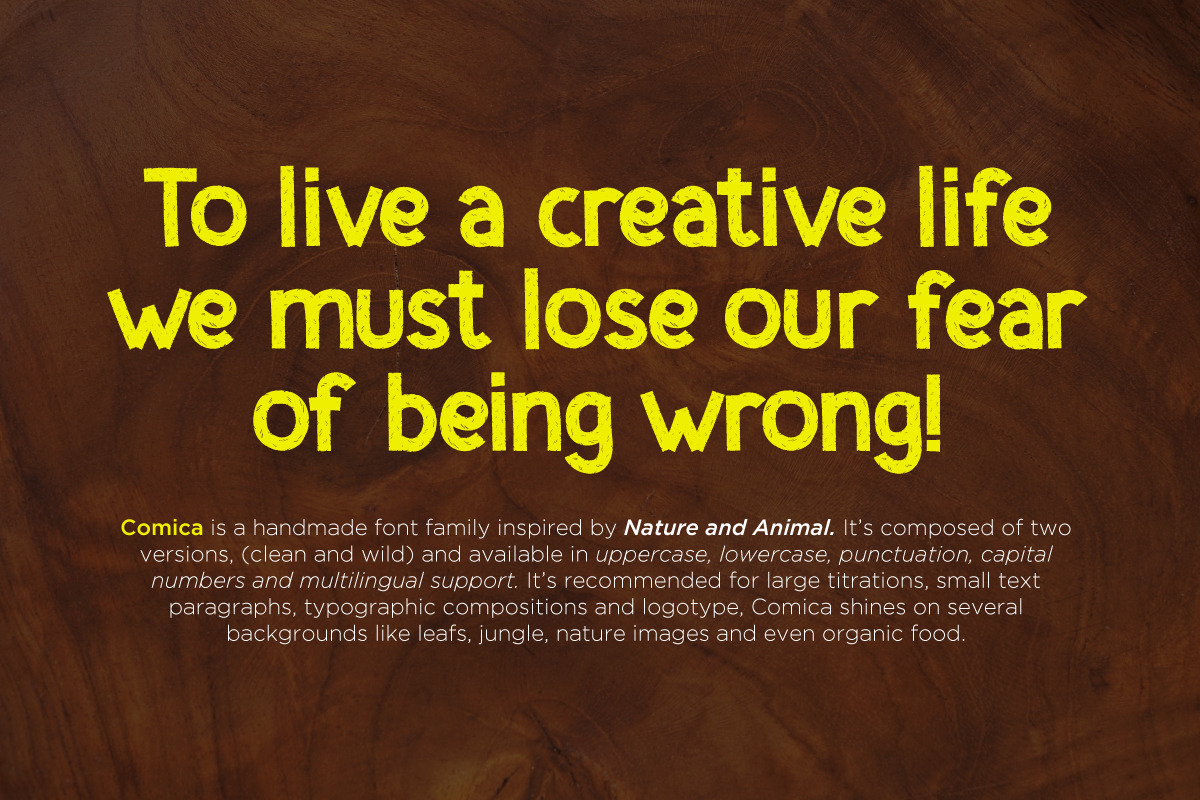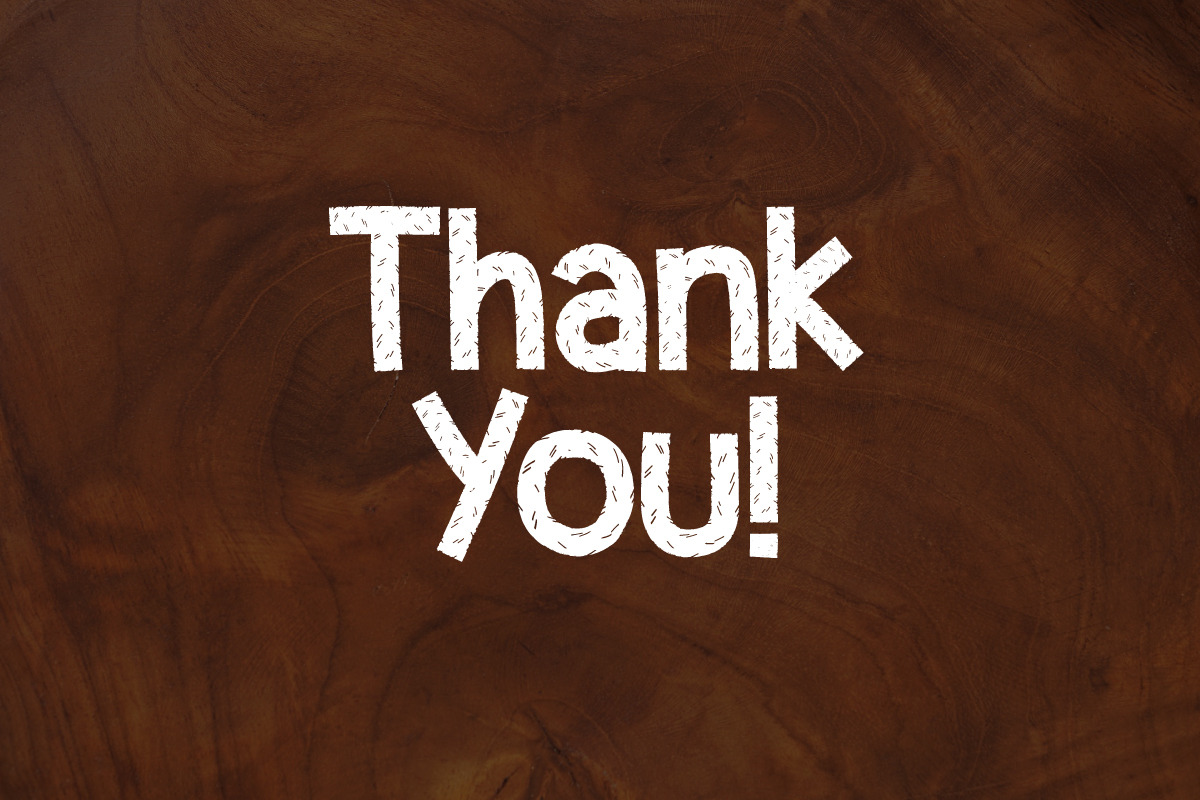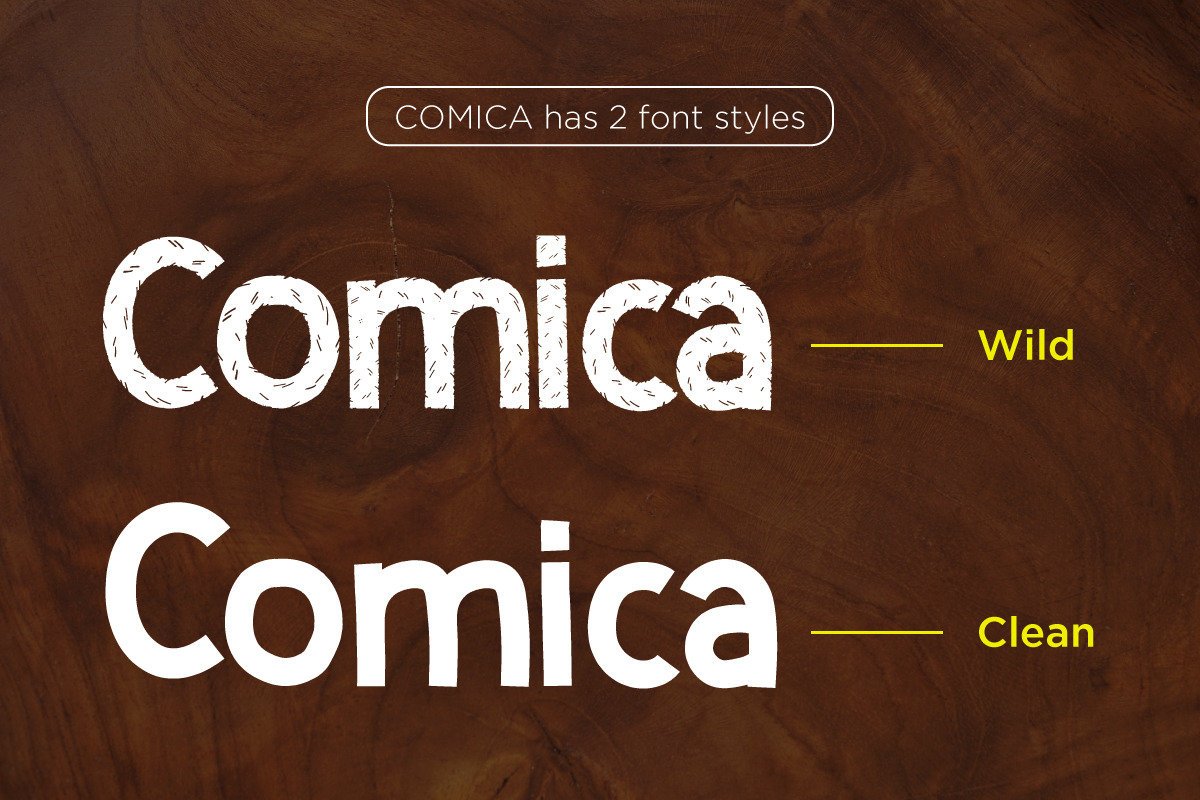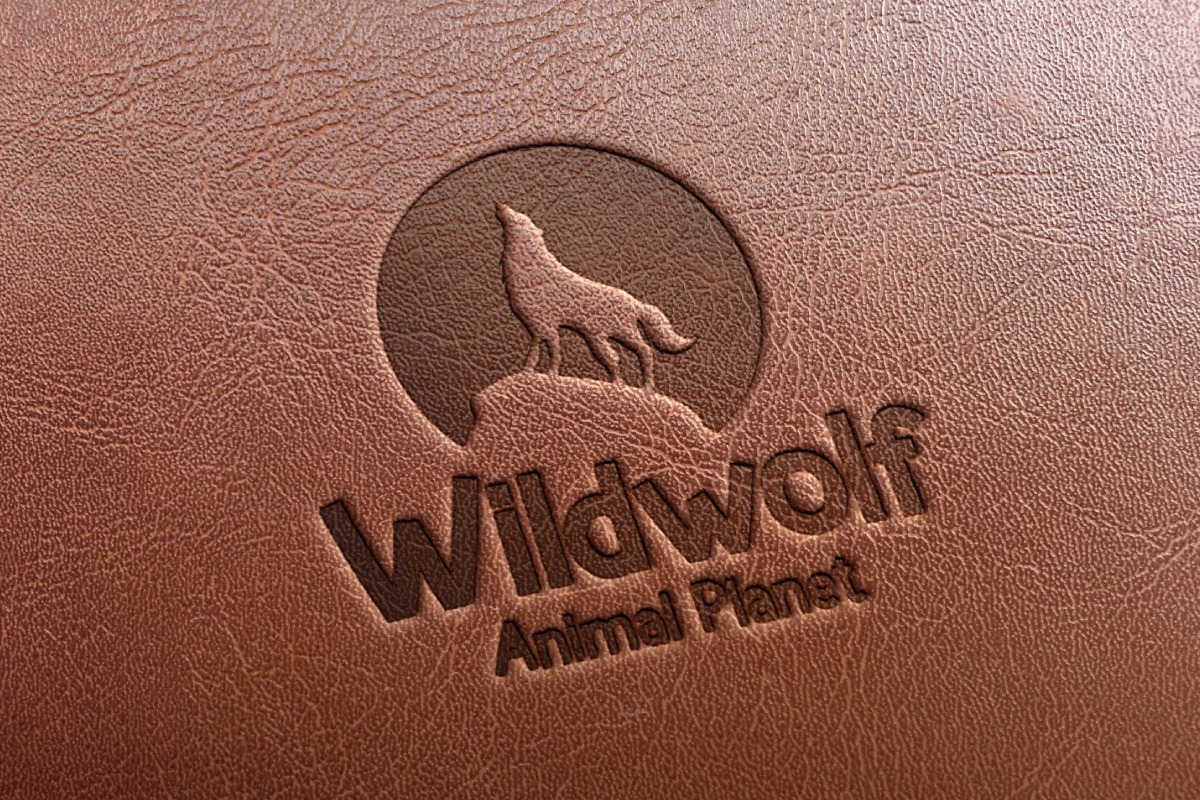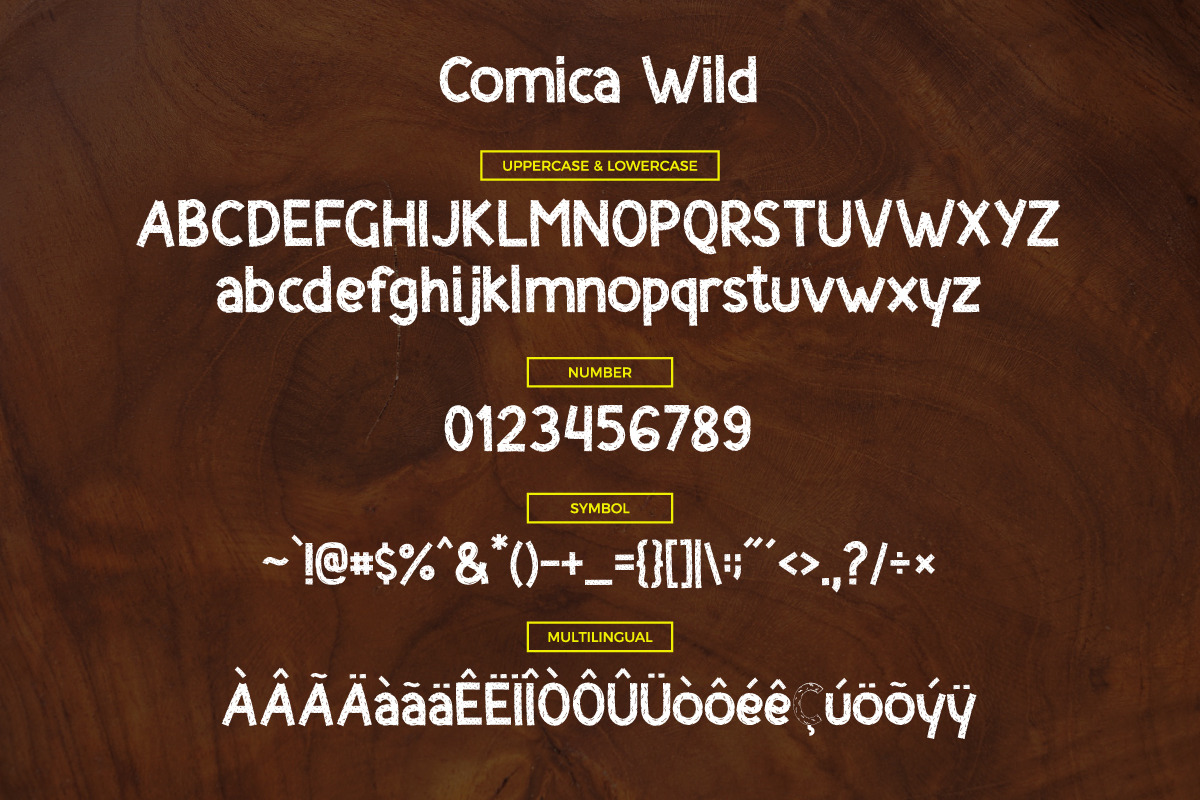
Comica ~ Font Duo
Comica is a handmade font family inspired by Nature and Animal. It’s composed of two versions, (clean and wild) and available in uppercase, lowercase, punctuation, capital numbers and multilingual support. It’s recommended for large titrations, small text paragraphs, typographic compositions and logotype, Comica shines on several backgrounds like leafs, jungle, nature images and even organic food.